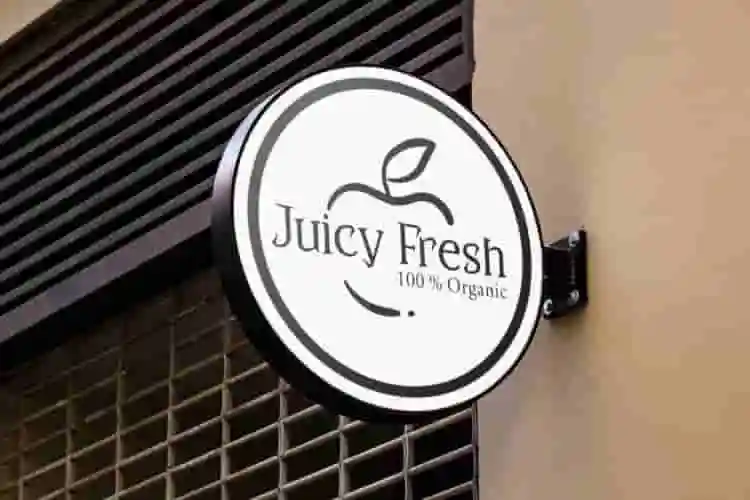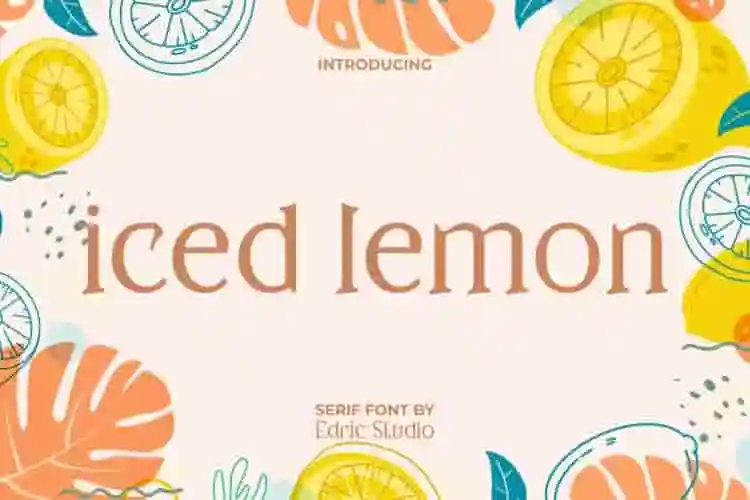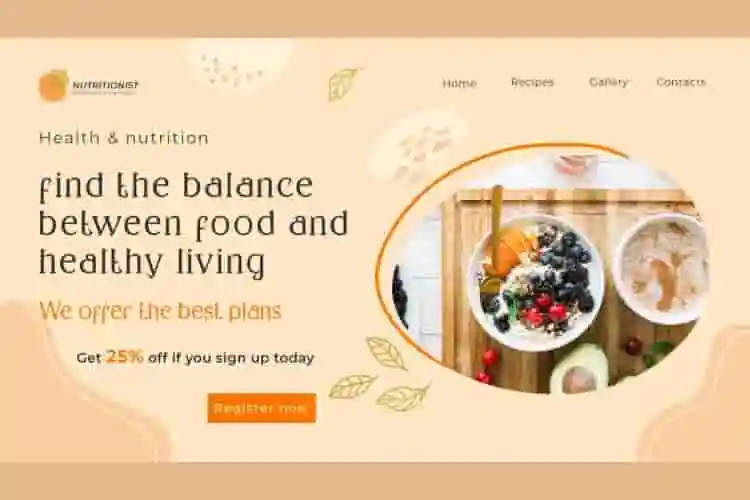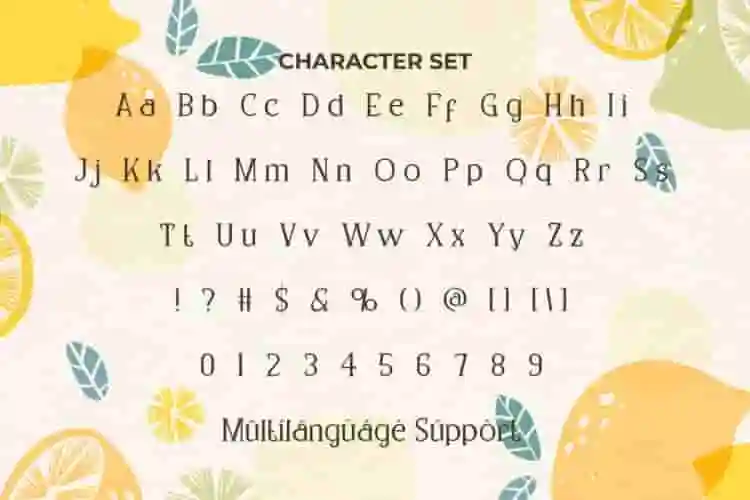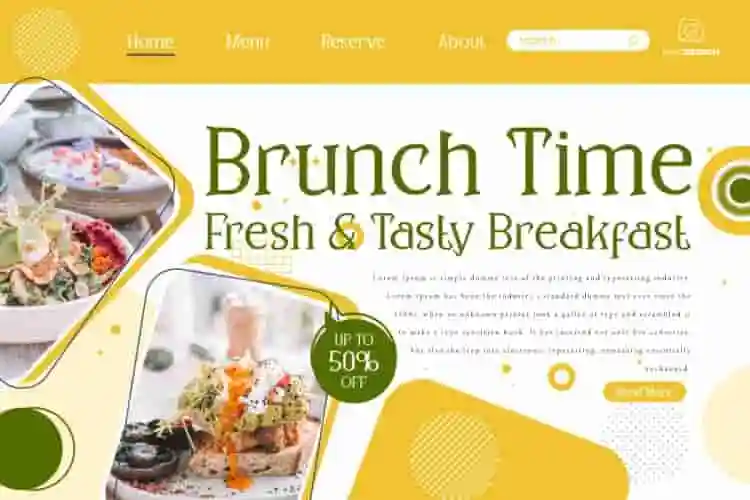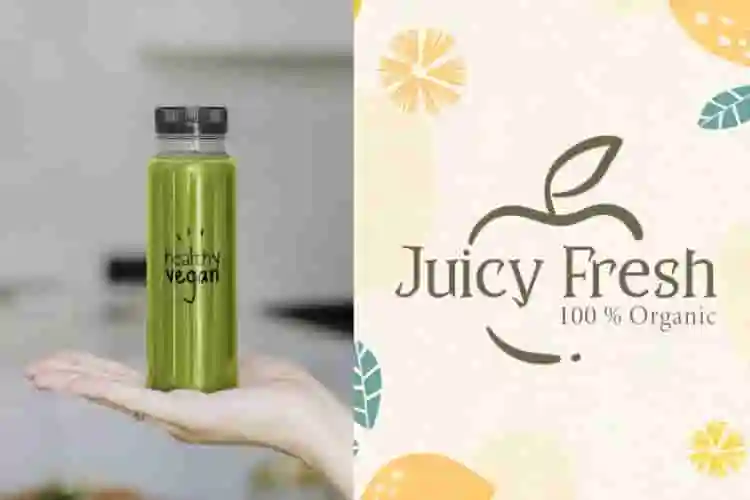
Iced Lemon Font is a refreshing font that gives a fun and bright impression to each character. It feels sour and cold, like enjoying a beverage in the middle of a sunny beach atmosphere. With its sleek and modern design, it is so perfect and suitable for designs such as brochure, cover, greeting cards, headers, label design, logos, menu, pamphlet, poster, printing, quotes, website, and many more.
Iced Lemon Font comes with a full set of Uppercase and Lowercase letters, Number, Punctuation, and Symbol. This font is made in a serif style so that the characters have a very cheerful and pleasant character to look at. With its unique design, this font has its own characteristics. Its versatility makes it suitable for brand of cafeteria, dessert/pastry chef, fruit wholesaler, restaurant, sweet product, etc.
Add a splash of sunshine to your designs with Iced Lemon Display Font — a juicy, playful display font bursting with personality and charm. Inspired by summer vibes, citrus coolers, and handwritten fun.
Whether you’re designing for a lemonade stand, an ice cream brand, a children’s party invite, or cheerful social media graphics, Iced Lemon Display Font brings brightness and boldness to every word.
Perfect for summer-themed campaigns, product labels, greeting cards, and more — this display font will instantly give your designs a fun, friendly, and irresistible look.